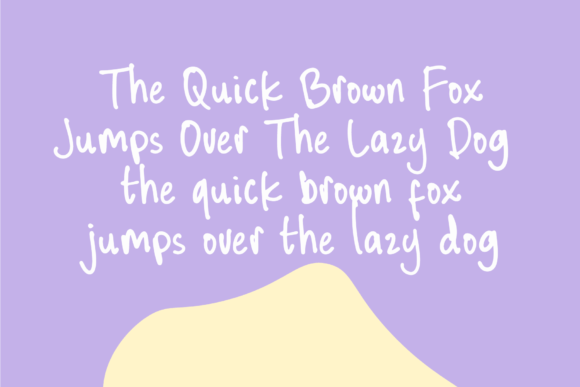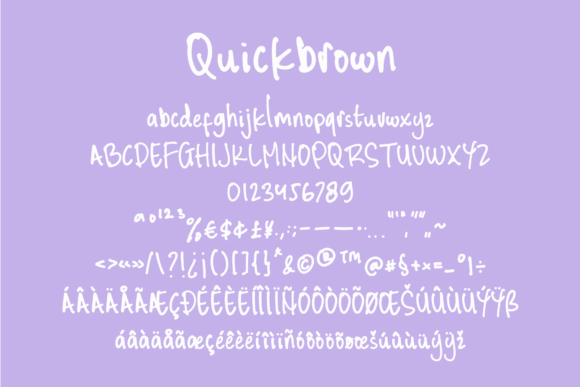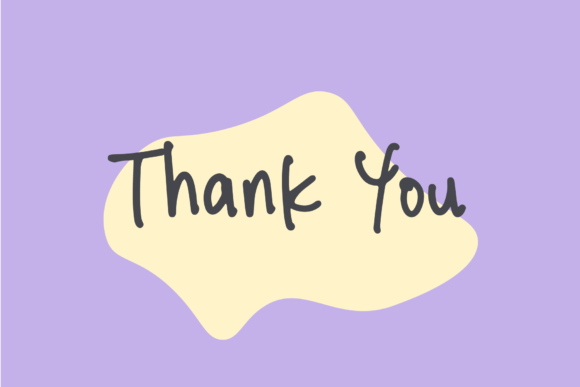
Introduction to Quickbrown Font
Have you ever been working on a creative project, brainstorming ideas and perfecting the details, only to have the right font elude you? That’s exactly what happened to many designers until they discovered the Quickbrown Font. This delightful, handwritten font has captured the hearts of designers and crafters alike, making it an invaluable resource for any creative project.
With its charming, cursive script, the Quickbrown Font is ideal for adding a personal touch to your designs, from greeting cards to presentations. And the best part? It’s available for free download, making it an accessible design resource for designers of all levels. Whether you’re working on a high-quality digital design or a simple craft project, the Quickbrown Font is sure to elevate your work with its transparent background and beautiful, flowing lines.
Key Features of Quickbrown Font
- Features a transparent background for seamless integration
- Comes in 3 font styles: Regular, Italic, and Bold
- Designed with a resolution of 1024 x 1024 pixels for crisp and clear display
- Perfect for use in logos, headings, and body text due to its high legibility
Honest Review: Quickbrown Font
As a designer, I’m always on the lookout for high-quality design resources to elevate my creative projects. The Quickbrown Font has been a game-changer for me, offering a unique blend of style and functionality.
- ✨ The font’s transparent background makes it easy to layer and blend with other design elements.
- ✨ The font’s sleek, modern design is perfect for contemporary creative projects.
However, I do have a few minor quibbles:
- ⚠️ The font can be a bit too bold for some designs, so be mindful of your typography hierarchy.
- ⚠️ The font’s lack of customization options might limit its use in certain creative contexts.
Overall, I’m thoroughly impressed with the Quickbrown Font. Its unique design, transparent background, and free download option make it a valuable addition to any designer’s toolkit. With a little bit of creative experimentation, I’m confident you’ll find a way to make the Quickbrown Font shine in your next project.
Getting the Most Out of Quickbrown Font
To get the most out of the Quickbrown Font, use it in combination with other design elements to create a visually appealing design. Experiment with different font sizes, colors, and styles to achieve the desired effect.
The Quickbrown Font is ideal for various creative projects, including:
- Business cards
- Brochures
- Posters